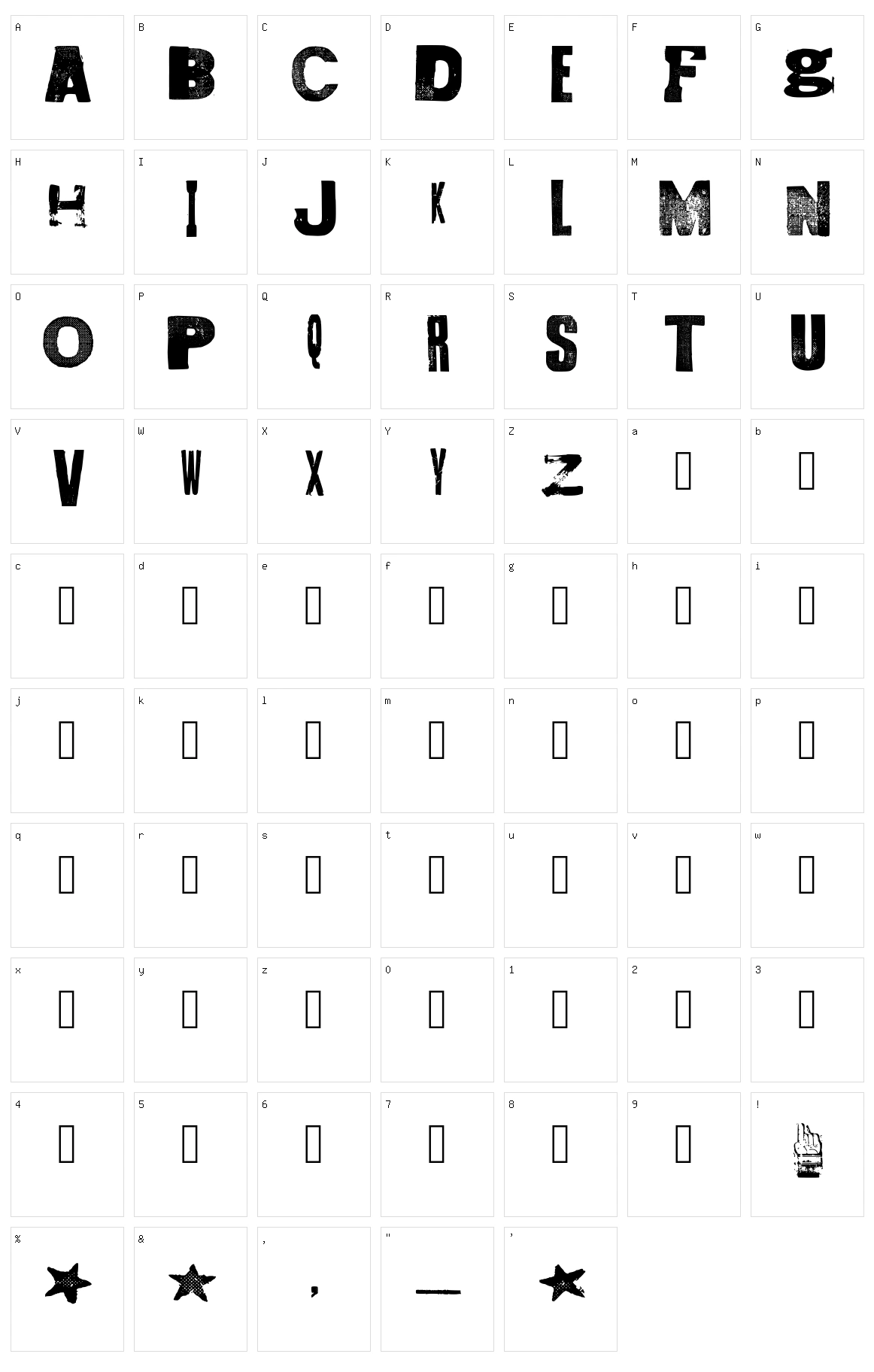
The free font Fidalga is carefully designed by Israel Dideoli, showcasing a thoughtful balance of creativity and usability and falls under the Distorted font style. When you download the ZIP file, it contains only 88.37 KB of font files, making it lightweight and quick to download. Please review the license details below to understand permitted usage and distribution rights. If license information is not available, we recommend using this font for personal projects only or contacting the author directly for commercial usage permissions.